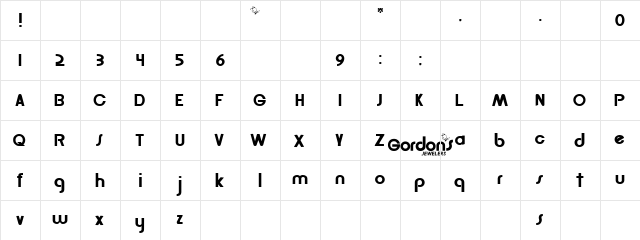
Jamesian Regular
Design Context for Jamesian Typeface
Jamesian offers clean, dependable letterforms without strong stylistic allegiance, making it a practical choice for designers who need flexibility.